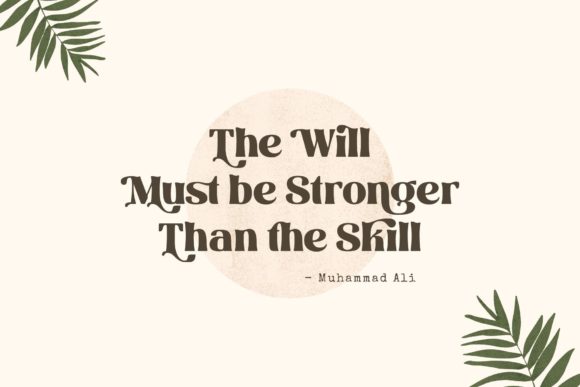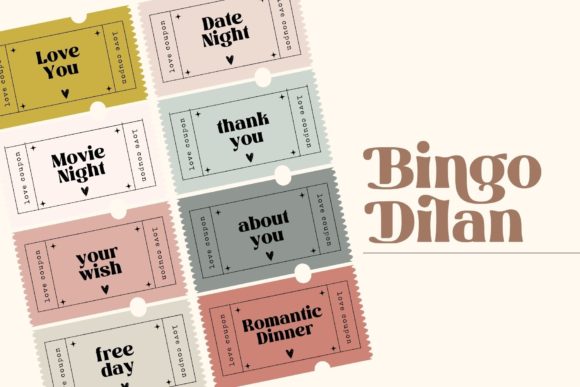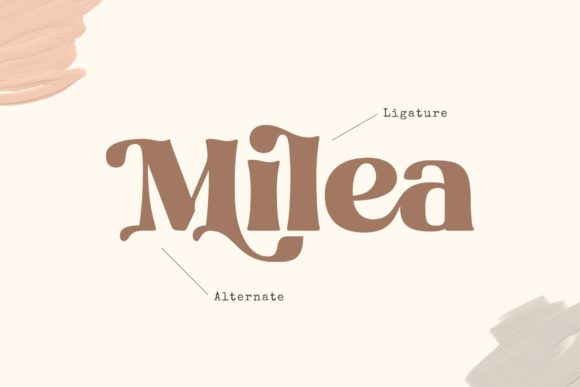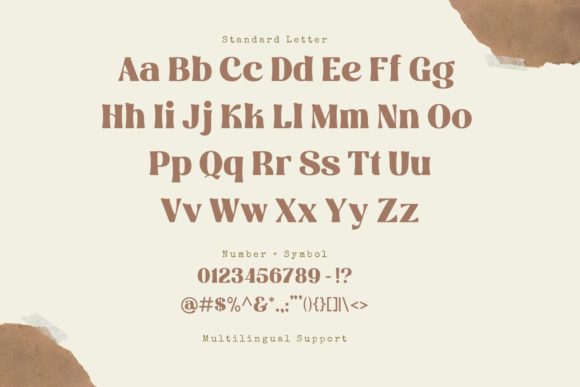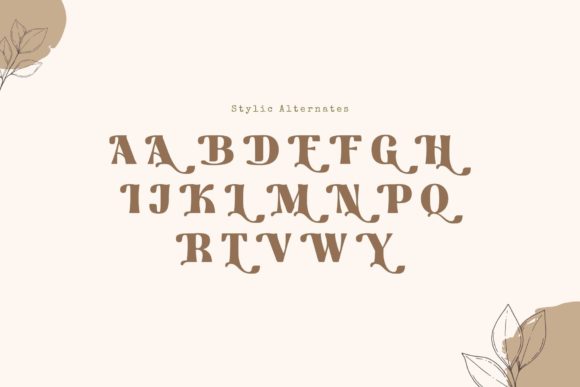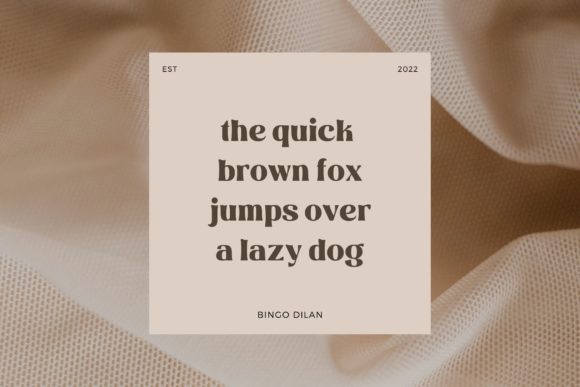
Bingo Dilan Font: The Perfect Blend of Style and Versatility
In the world of typography, fonts play a crucial role in conveying the tone and personality of a brand or design. For designers and crafters looking for a font that exudes style, sophistication, and versatility, Bingo Dilan is an excellent choice. This cool and stylish serif font has gained popularity for its unique blend of masculine and feminine qualities, making it perfect for fashion-related branding, editorial design, and more.
What Makes Bingo Dilan Stand Out?
Bingo Dilan’s distinctiveness lies in its elegant yet bold design. The font features classic serif elements with a modern twist, giving it a fresh and contemporary look. Its versatility is one of its strongest assets, allowing it to adapt seamlessly to various design contexts. Whether you’re working on a luxury fashion brand’s logo, an editorial spread, or a craft project, Bingo Dilan can add a touch of sophistication and style.
Key Features of Bingo Dilan Font
- Serif Elegance: The font boasts traditional serif elements, providing a sense of timelessness and elegance.
- Masculine and Feminine Qualities: Bingo Dilan uniquely blends strong, masculine features with softer, feminine touches, making it suitable for a wide range of design applications.
- Versatility: Its adaptability makes it perfect for headlines, body text, and even decorative elements in designs.
- Modern Twist: Despite its classic roots, Bingo Dilan has a modern edge that sets it apart from more traditional serif fonts.
Perfect for Fashion Branding and Editorial Design
Fashion and editorial design require fonts that can convey a certain level of style and sophistication. Bingo Dilan checks all the boxes, making it an ideal choice for:
- Fashion Logos and Branding: Its stylish and elegant appearance makes it perfect for luxury fashion brands looking for a distinctive voice.
- Editorial Spreads: Whether it’s for a fashion magazine, blog, or any form of editorial content, Bingo Dilan can add a touch of class and readability.
- Craft and DIY Projects: For crafters and DIY enthusiasts, this font can add a professional and stylish touch to handmade products, packaging, and promotional materials.
Tips for Using Bingo Dilan Effectively
To make the most out of Bingo Dilan, consider the following tips:
- Pair it with Simplicity: Let Bingo Dilan be the focal point by pairing it with simpler fonts for body text or other design elements.
- Experiment with Sizes: Play with different sizes to emphasize headings, subheadings, and body text.
- Color Matters: Choose colors that complement the elegance of Bingo Dilan. Neutral tones or bold, contrasting colors can work well.
Bingo Dilan is more than just a font; it’s a design statement. Its cool and stylish serif design, combined with its versatility and unique blend of masculine and feminine qualities, make it a valuable asset for designers and crafters. Whether you’re working on a fashion brand, editorial project, or craft endeavor, Bingo Dilan can help elevate your design to new heights of style and sophistication.
So, if you’re on the lookout for a font that brings a perfect blend of elegance, style, and versatility, Bingo Dilan is definitely worth considering. Explore its potential and let it bring a touch of class and sophistication to your next design project.